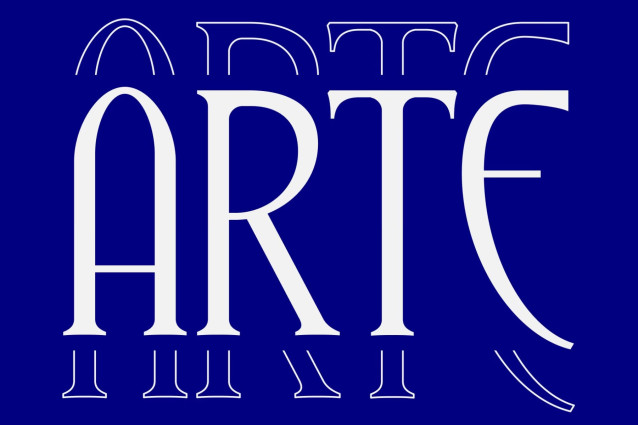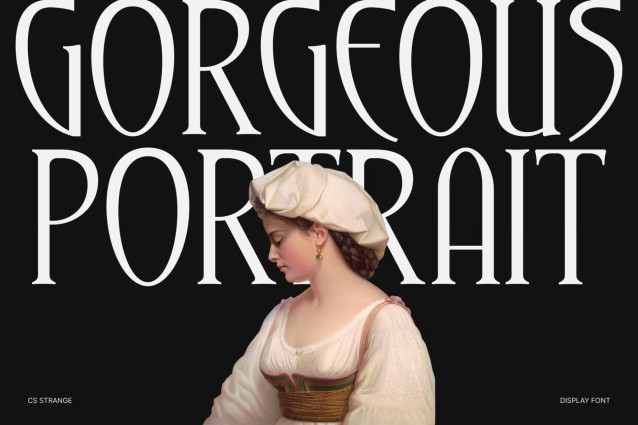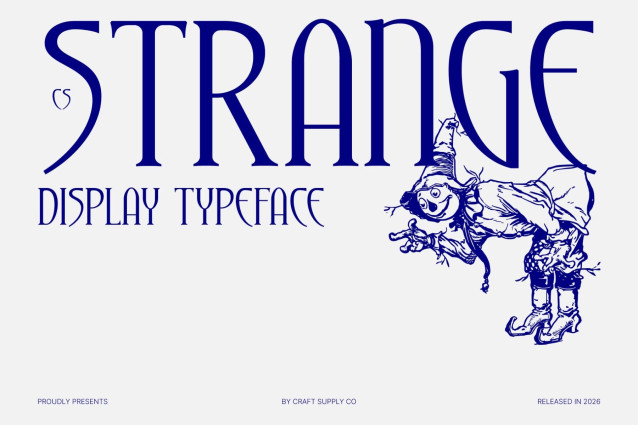
CS Strange – Modern Serif Font
CS Strange – Decorative Modern Serif with Elongated Elegance
Modern Serif with Decorative Character
This is a modern serif display font designed to blend contemporary sophistication with decorative artistry. Featuring elegant elongated proportions and refined details, this typeface creates a striking visual presence that feels stylish, expressive, and modern. It is crafted for designers who want typography that stands out with elegance and personality.
Elongated Forms with Artistic Appeal
The defining feature of this font lies in its elongated letterforms that create a graceful and dramatic rhythm across every composition. These extended proportions add sophistication and visual movement, giving headlines and titles a refined yet eye-catching appearance. The decorative details further enhance its artistic charm without sacrificing readability.
Contemporary Style with Distinctive Presence
This font balances modern serif structure with ornamental elegance, resulting in a typeface that feels both fashionable and timeless. Its clean construction ensures versatility across digital and print applications, while its unique decorative character gives designs a memorable and luxurious touch.